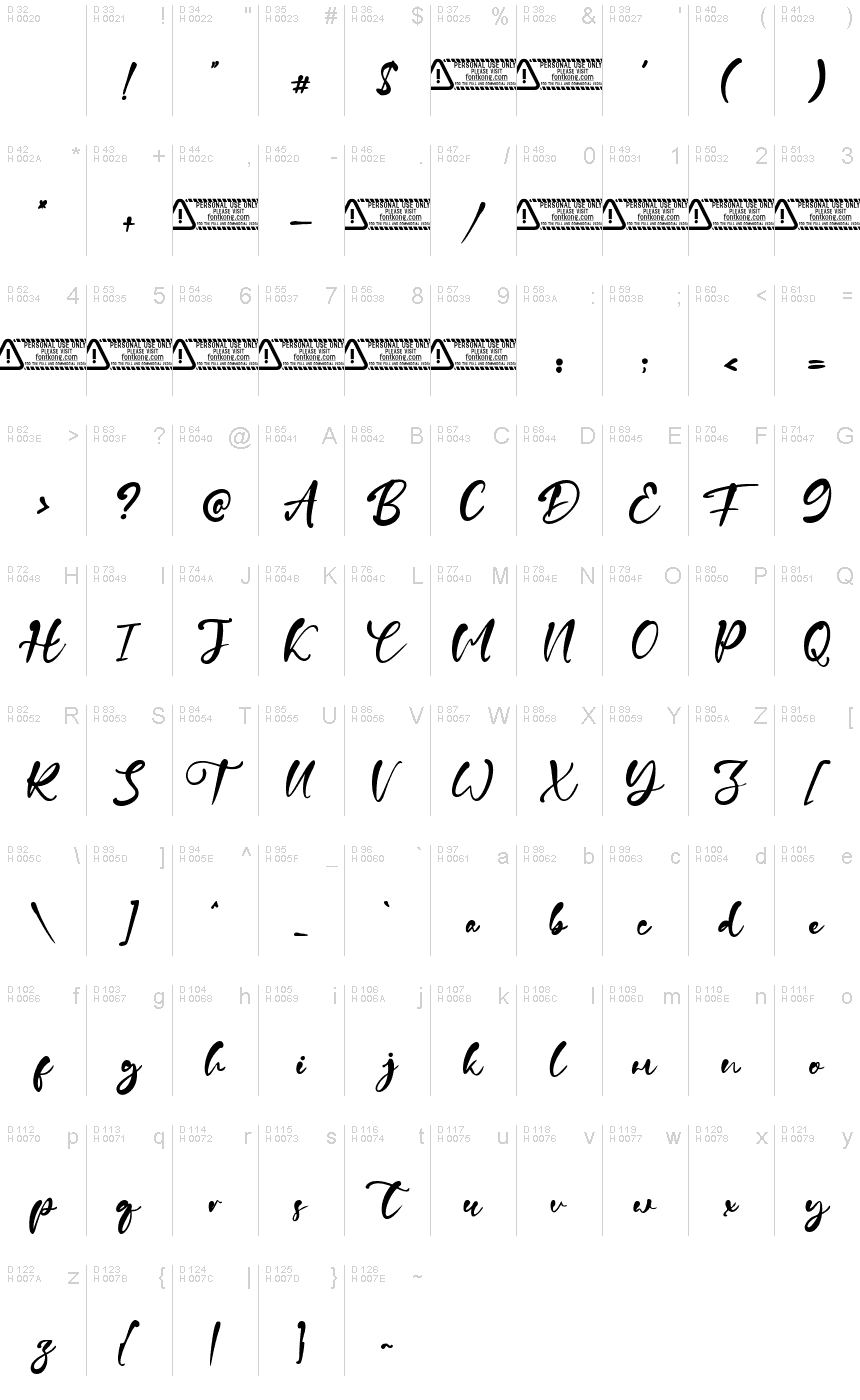
Gina Sean
Gina Sean, a creation of the talented Kong Font, embodies the essence of modern handwritten style. With its graceful curves and fluid strokes, this font exudes elegance and sophistication.
Perfect for wedding invitations and romantic love letters, Gina Sean adds a touch of whimsy to any project. Its versatility shines through in casual yet professional settings such as branding materials for fashion boutiques or trendy cafes.
Let Gina Sean elevate your designs with its unique charm and contemporary appeal.